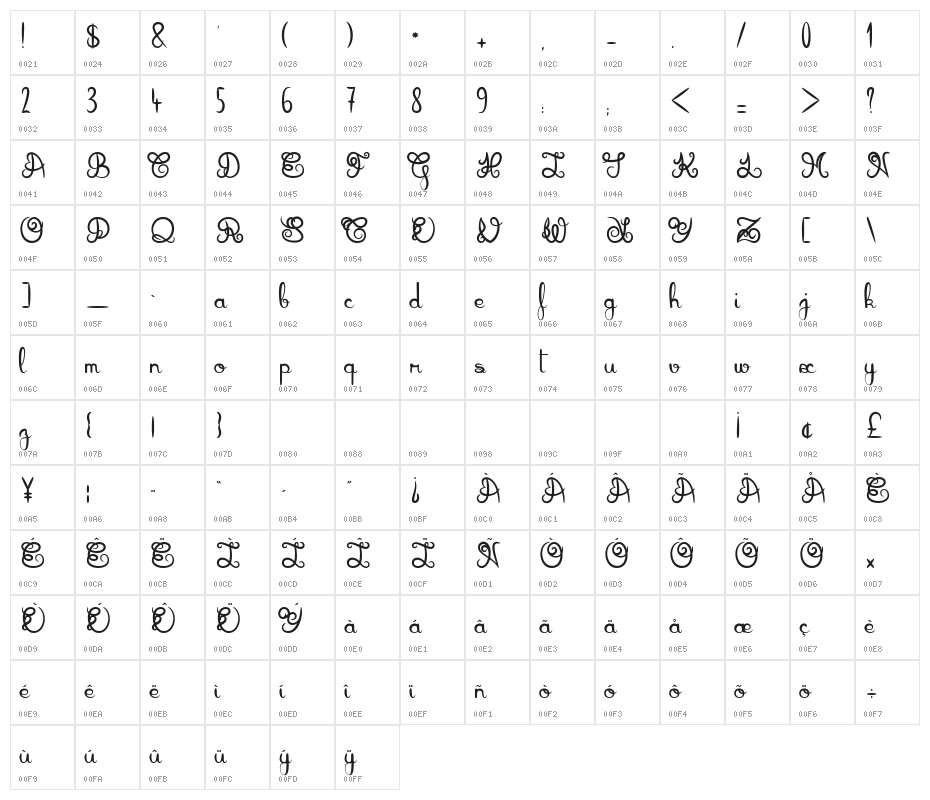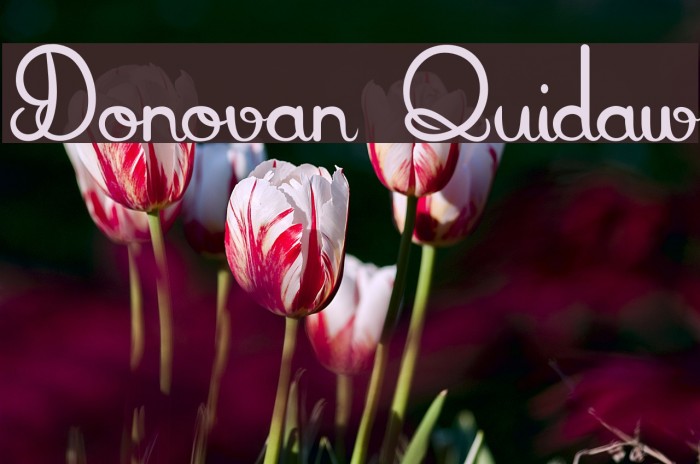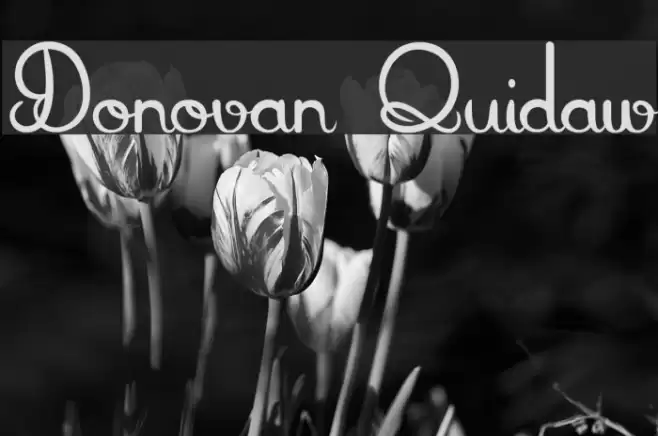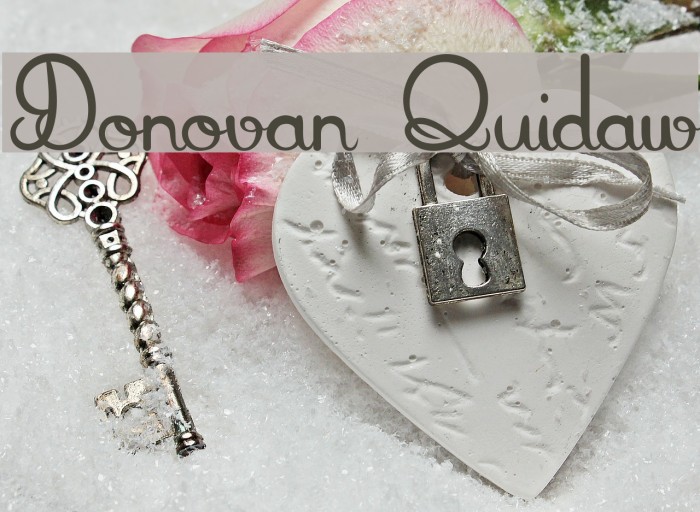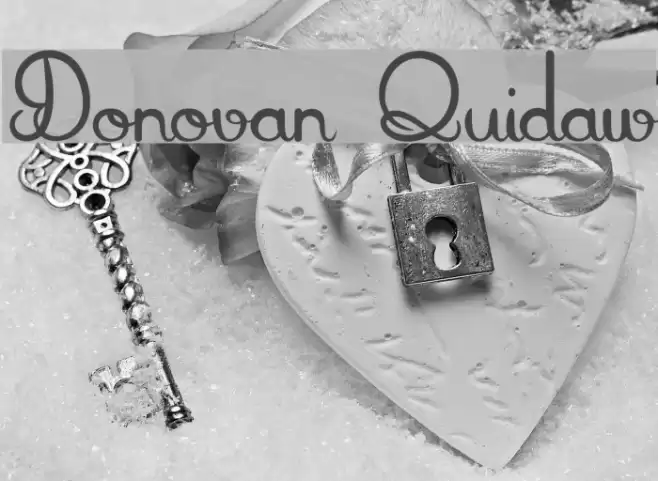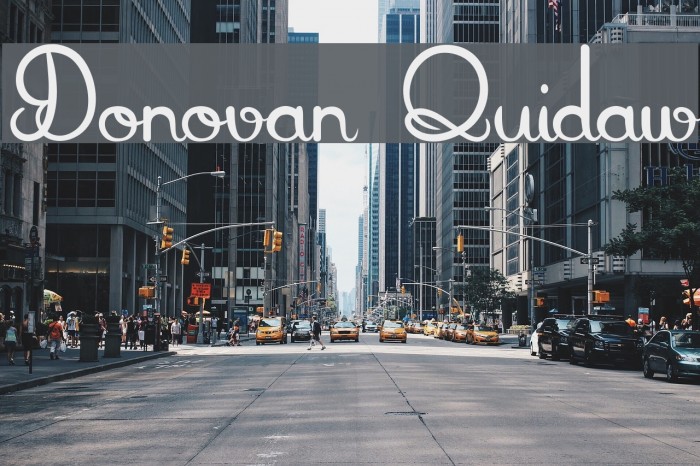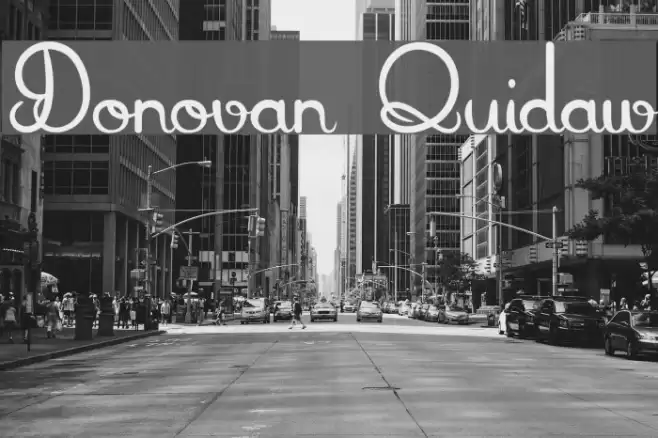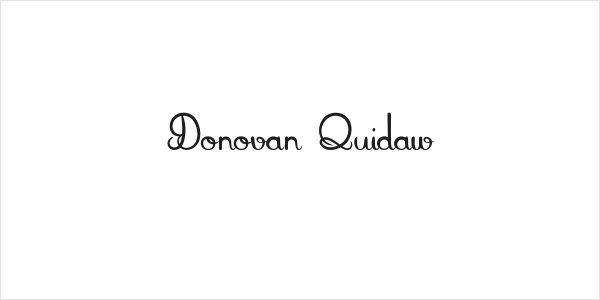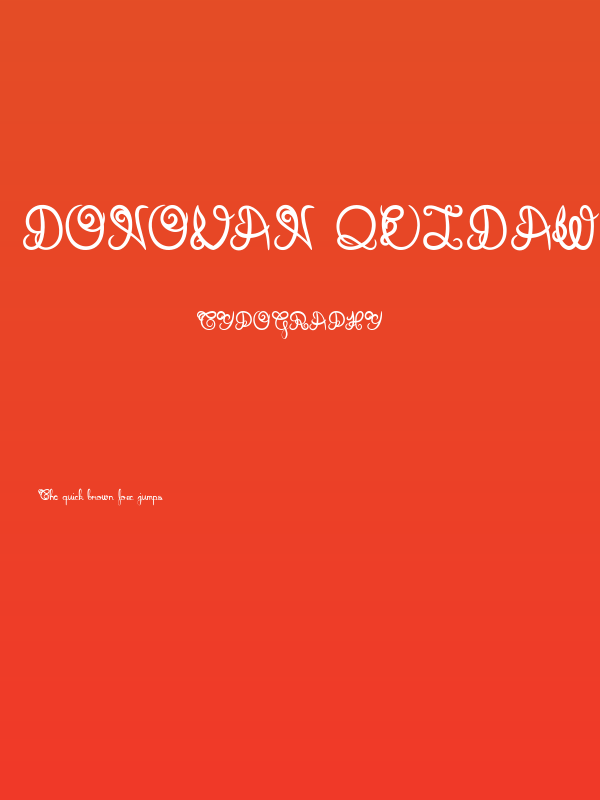
Donovan Quidaw Font
Donovan Quidaw Description
This font features a whimsical and decorative style, characterized by its intricate loops and flourishes. The uppercase letters are particularly ornate, with each character displaying unique swirls and embellishments that give it a playful yet elegant appearance. The lowercase letters maintain a more streamlined and cursive look, providing a nice contrast to the elaborate uppercase. Numbers and special characters follow the same decorative theme, ensuring consistency across all glyphs. This font's artistic flair makes it suitable for creative and expressive design projects.
| Use Case | Headlines, Logos, Artistic projects |
| Proposed Projects | Ideal for wedding invitations, greeting cards, artistic posters, and branding materials that require a touch of elegance and creativity. |